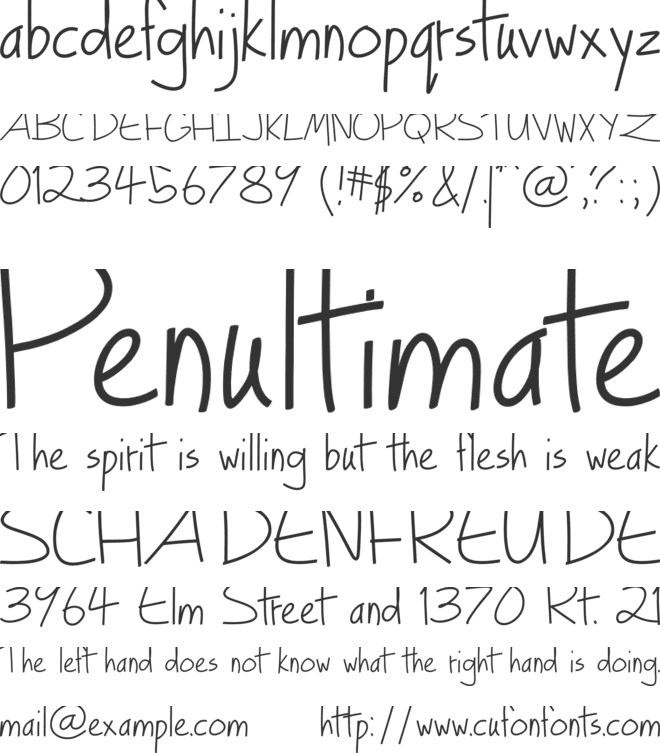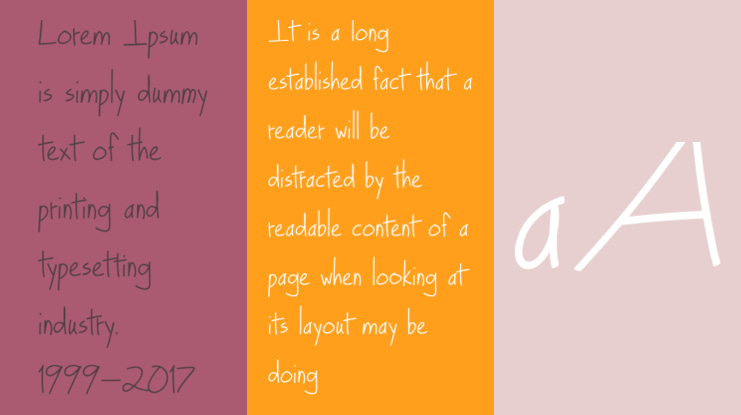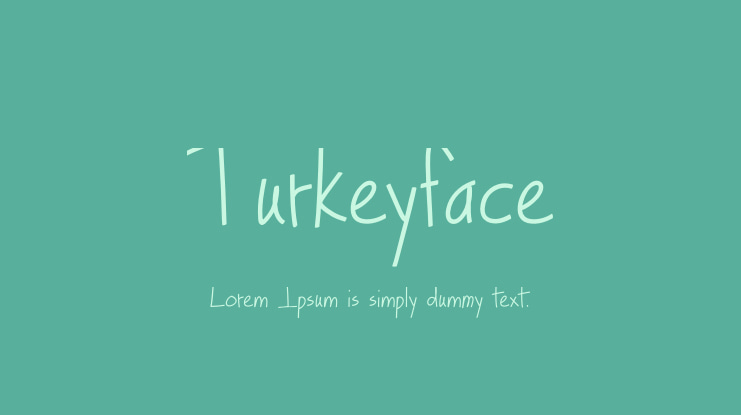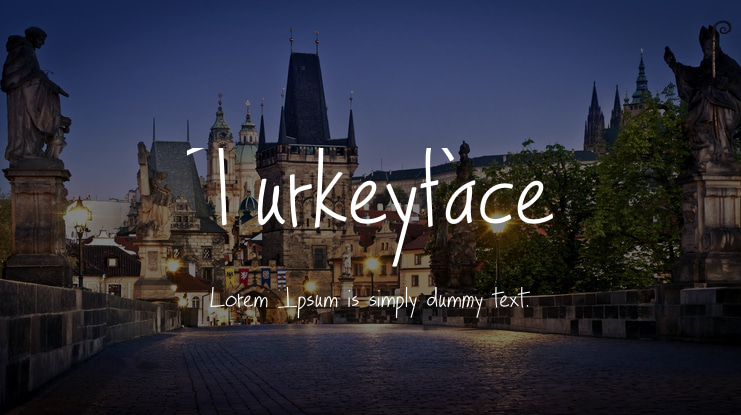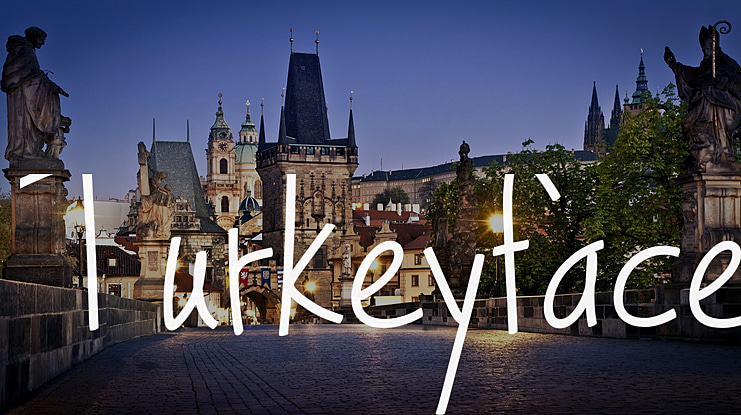
Turkeyface Font
Lee Batchelor
Cool thing: All of my handwritten fonts utilize OpenType alternatives for a more realistic handwritten appearance. With OpenType features turned on, double letters will appear slightly different, just like handwriting.